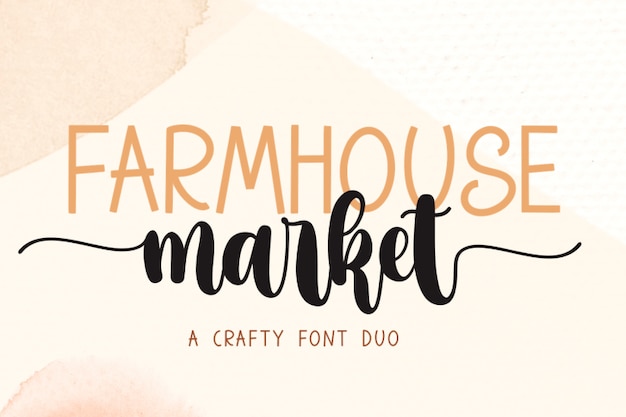
Farmhouse Market
Farmhouse Market Font
Farmhouse Market is a crafty font duo created for you to boost your projects with a stylish flair. Make good use of this font to invent new invitation cards, posters and flyers.
Farmhouse Market Sans (400)
Farmhouse Market Script (400)